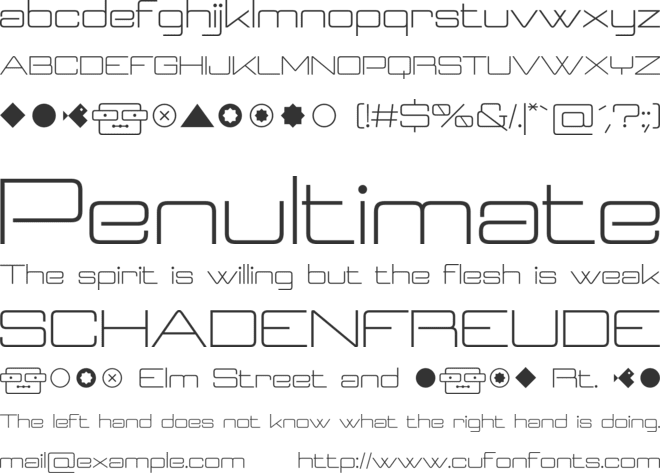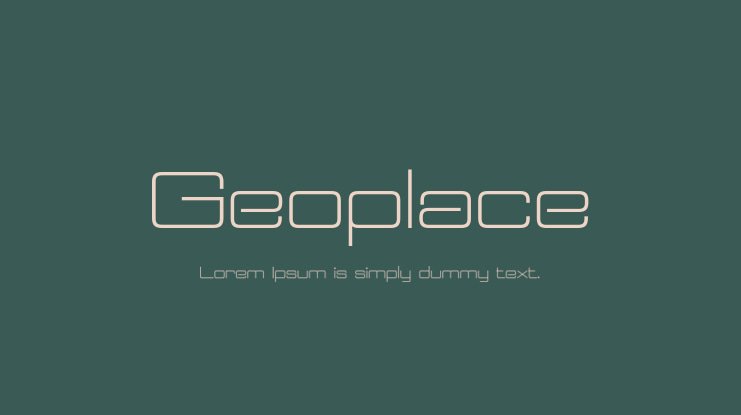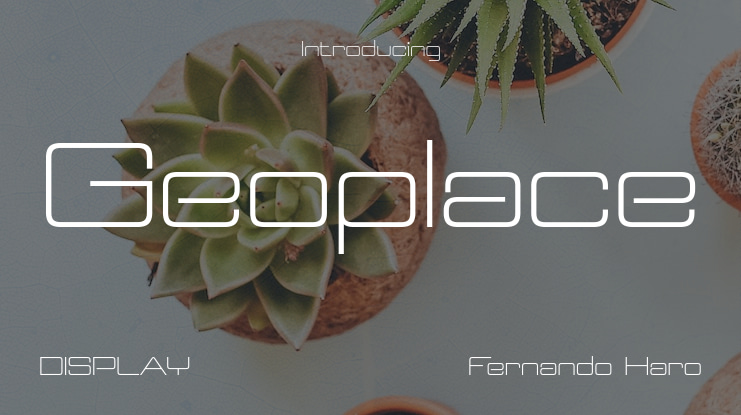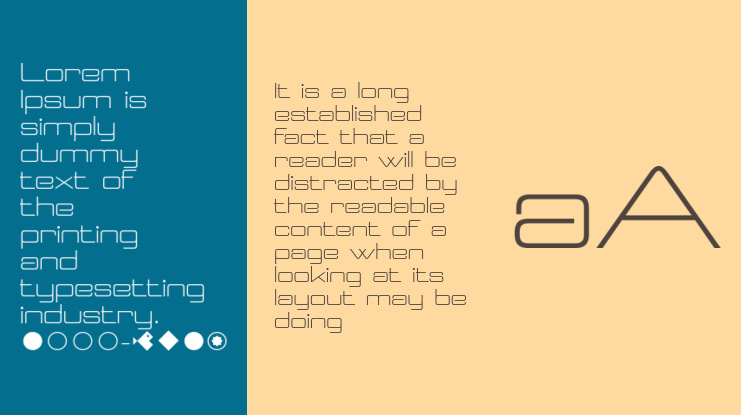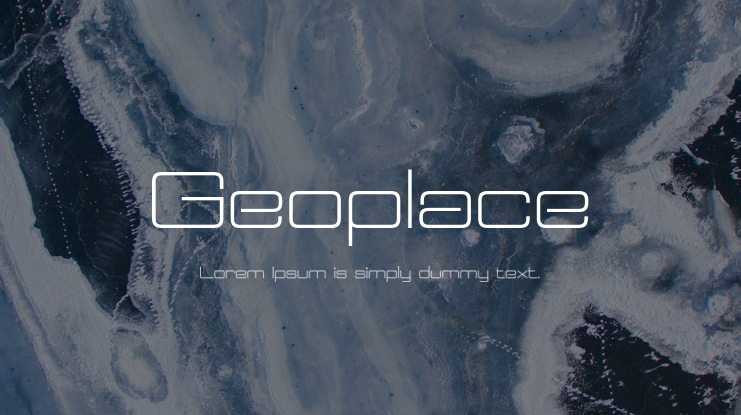
Geoplace Font Family
A modern and sleek sans serif typeface collection, influenced by futuristic urban aesthetics and technological innovation. This design is a testament to my love for precision and geometry, resulting in a blend of unique visuals and readability.
Geoplace font preview
Geoplace Regular font
Geoplace Bold font